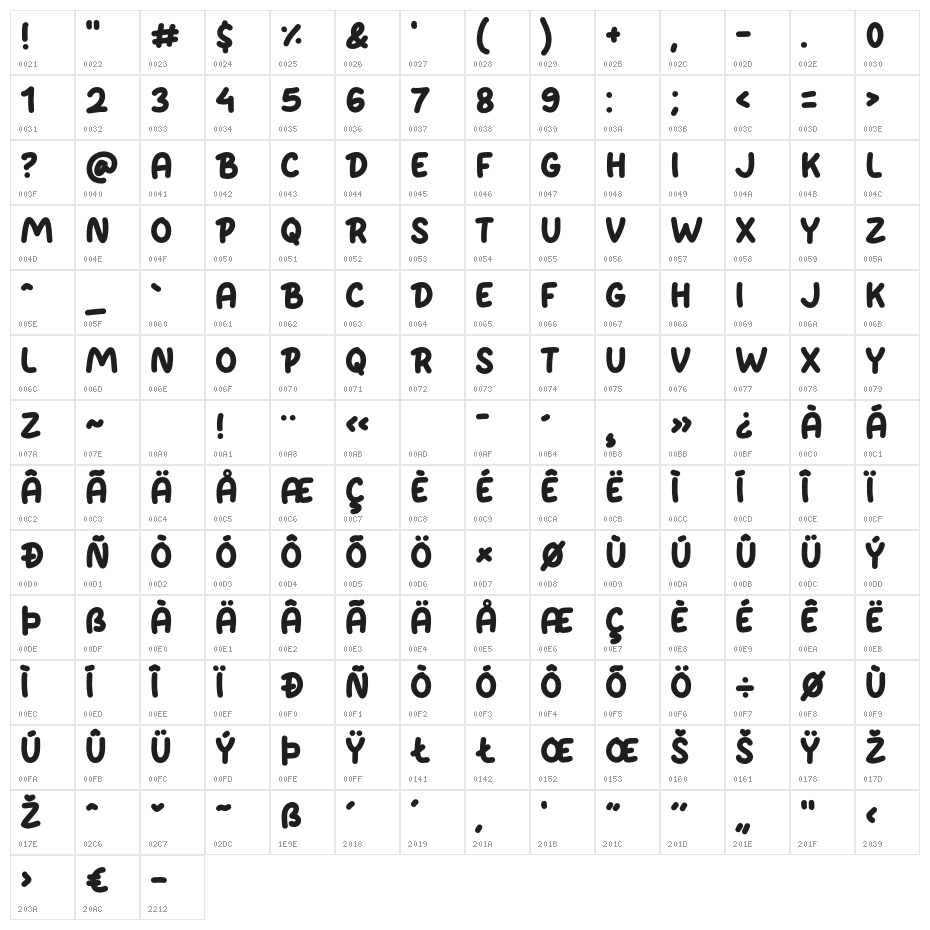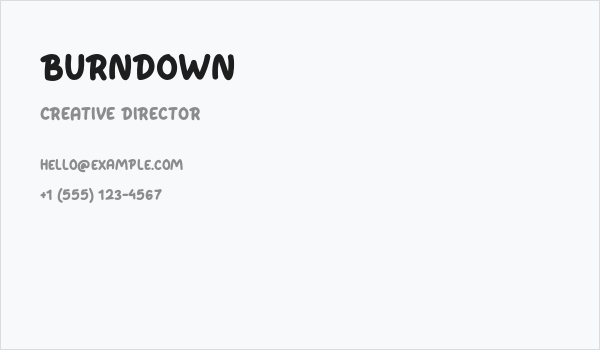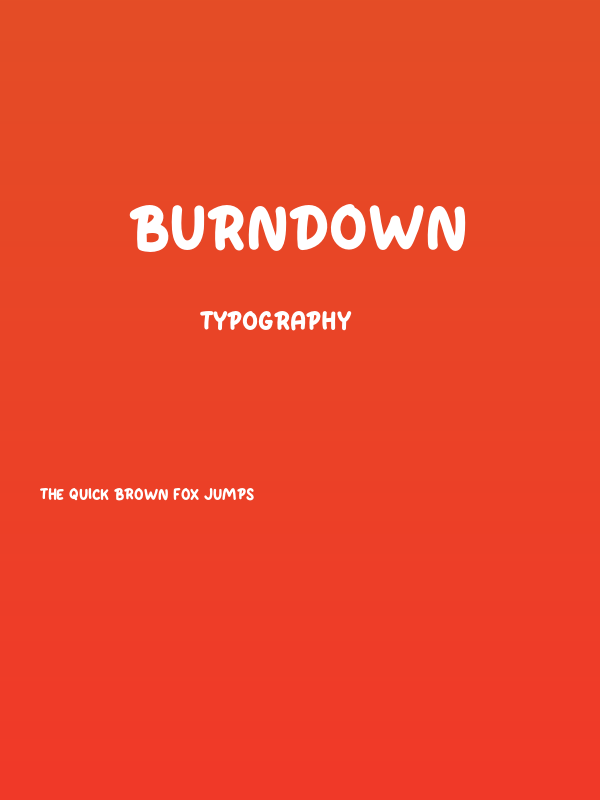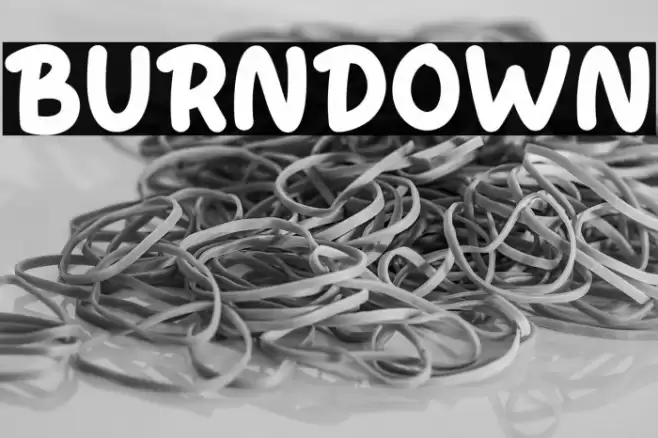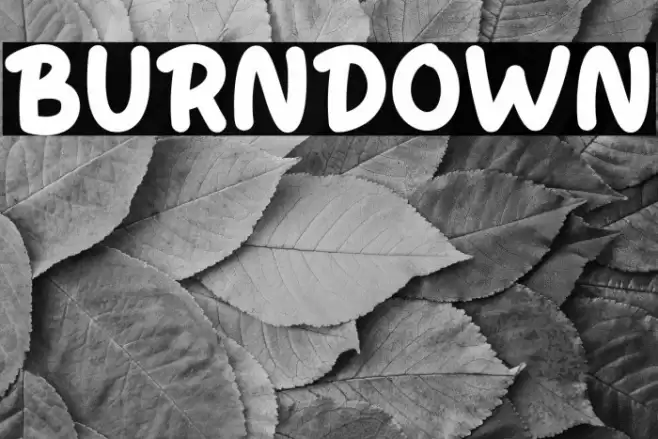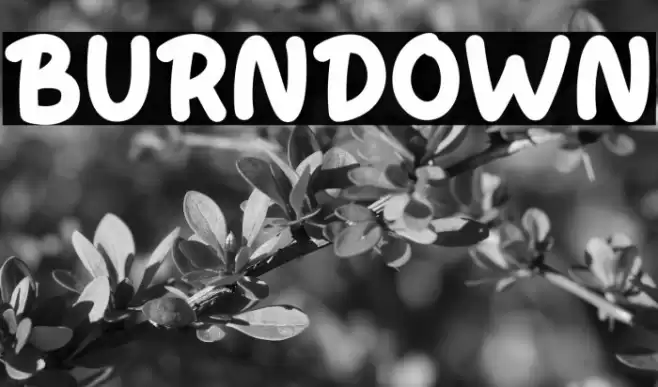
Burndown Font
Burndown Description
This font features a bold and playful style with rounded edges and a hand-drawn appearance. The letters are thick and uniform, giving a sense of friendliness and approachability. The characters have a consistent weight throughout, which enhances readability while maintaining a casual and informal tone. The numbers and special characters follow the same design principles, ensuring a cohesive look across all elements. This font's unique style makes it suitable for projects that require a touch of personality and creativity.
| Overall Style | Playful |
| Proposed Projects | Ideal for children's books, playful branding, casual invitations, and creative posters. |